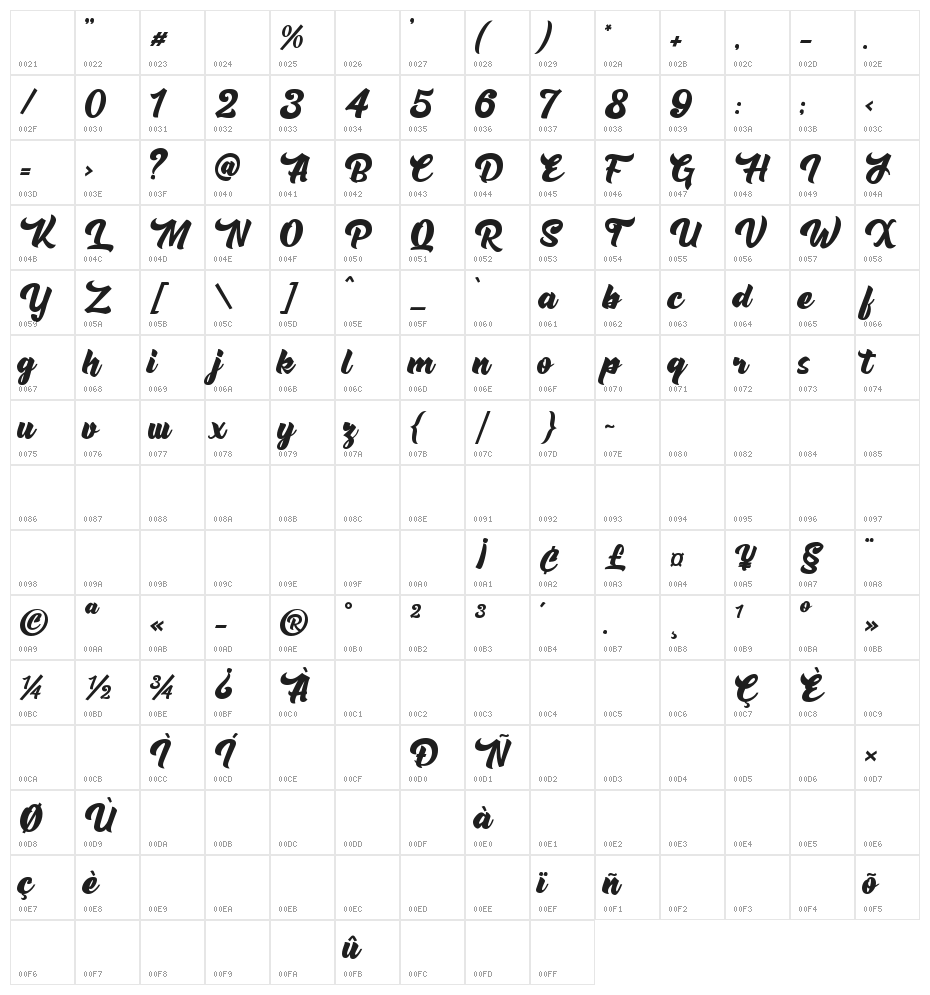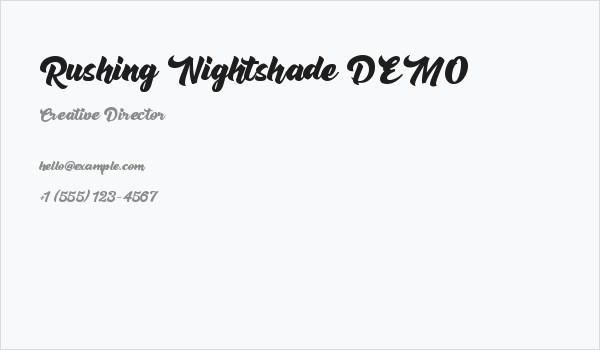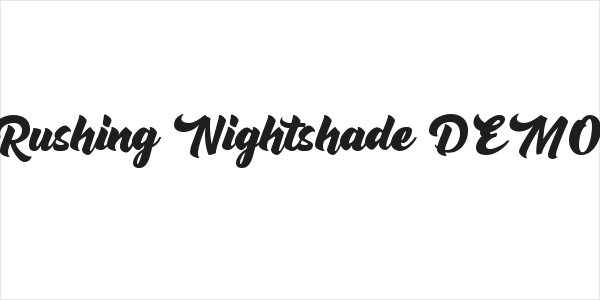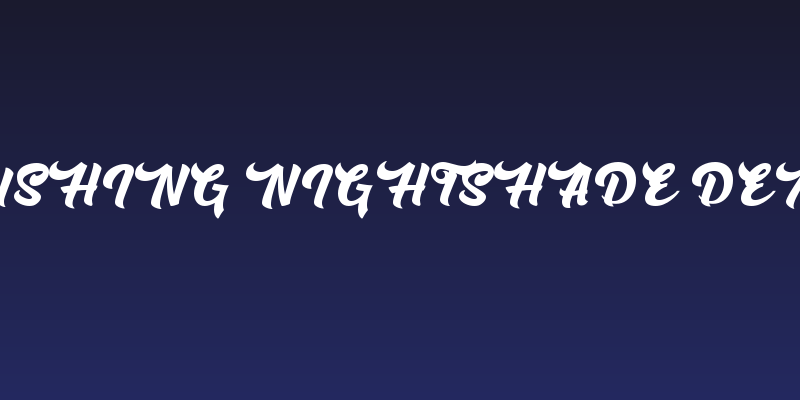
Rushing Nightshade DEMO Font
Rushing Nightshade DEMO Description
This font features a bold and expressive script style, characterized by its flowing, cursive letterforms that exude a sense of elegance and dynamism. The uppercase letters are particularly ornate, with sweeping curves and flourishes that add a touch of sophistication. The lowercase letters maintain a consistent style, offering a harmonious blend of readability and artistic flair. The numerals are bold and rounded, complementing the overall aesthetic. Special characters are designed with the same attention to detail, ensuring a cohesive look across all glyphs. This font is ideal for projects that require a touch of personality and style.